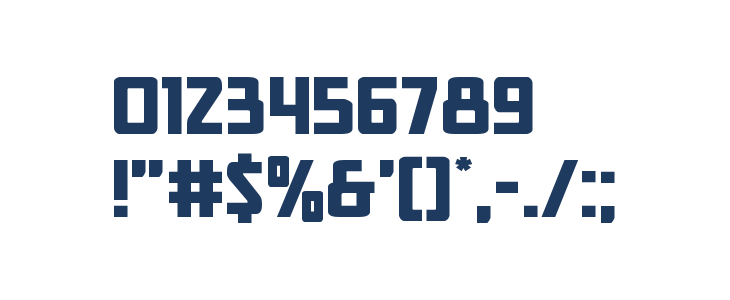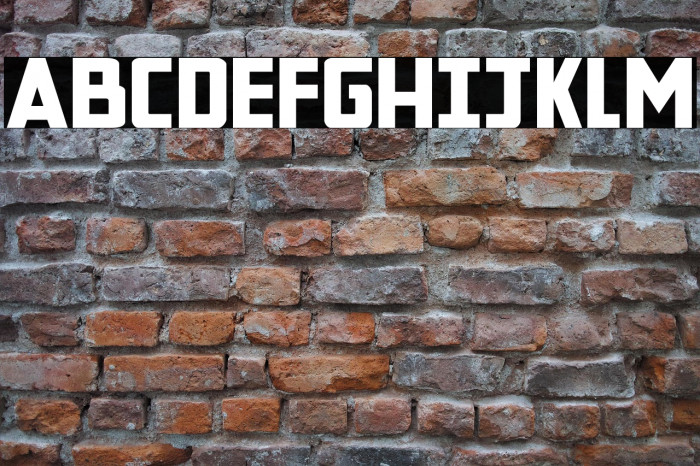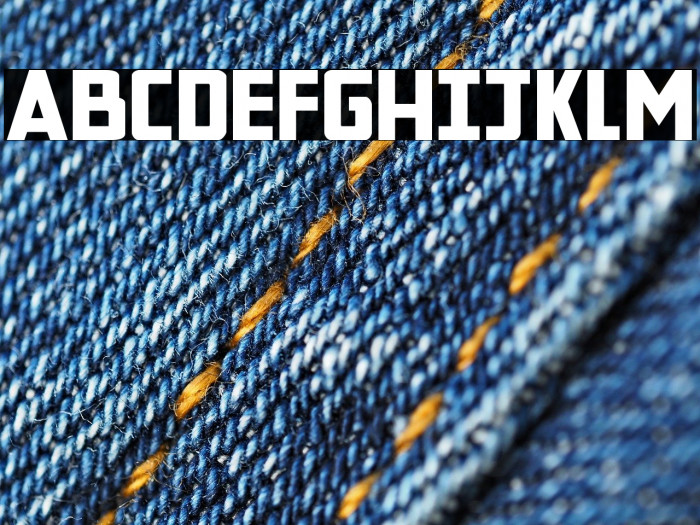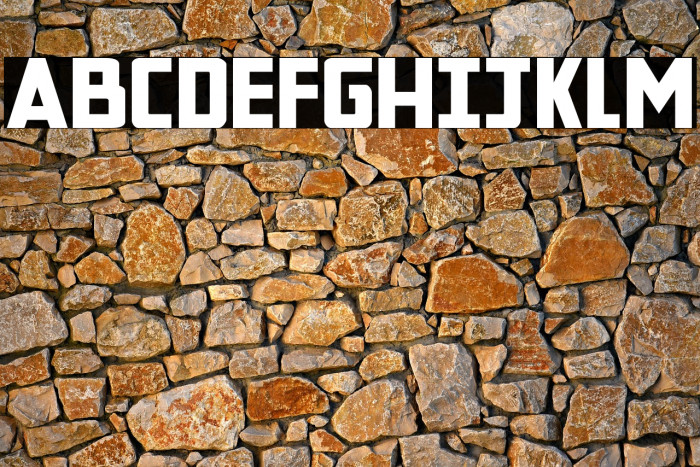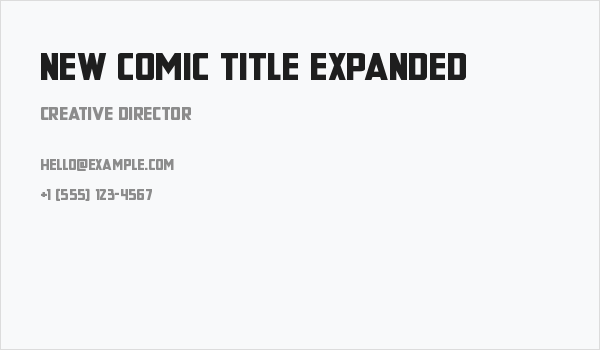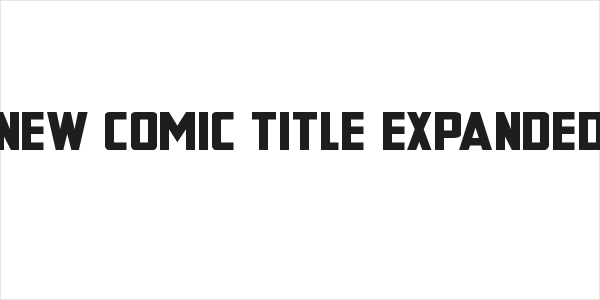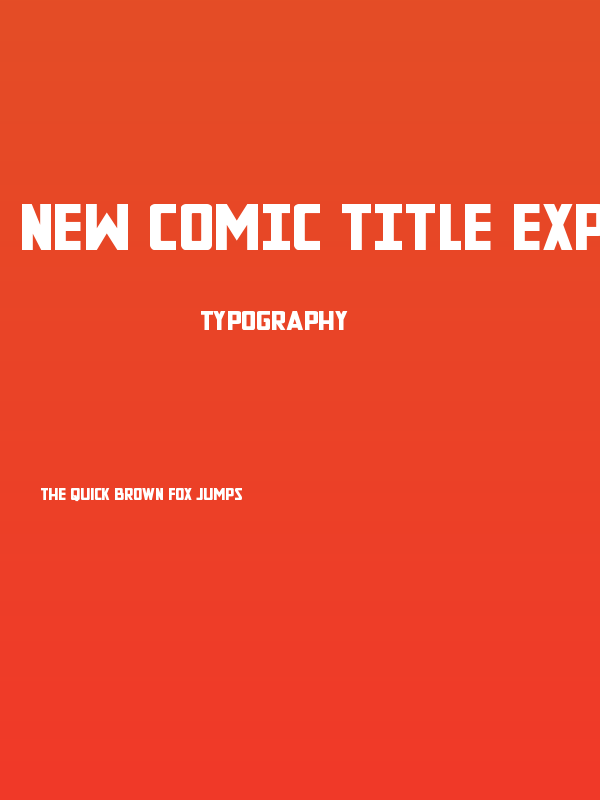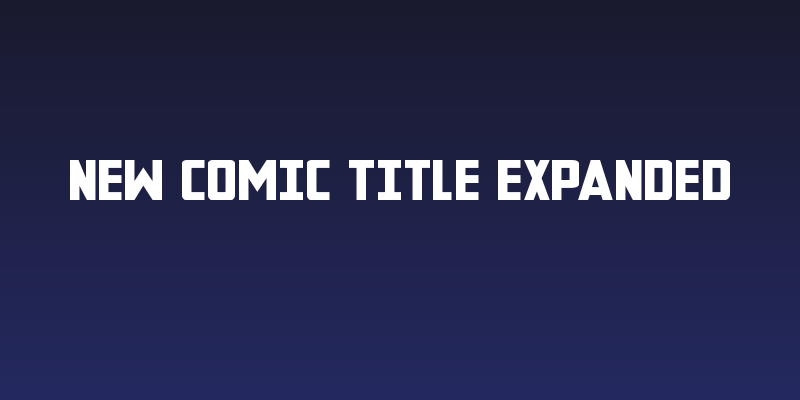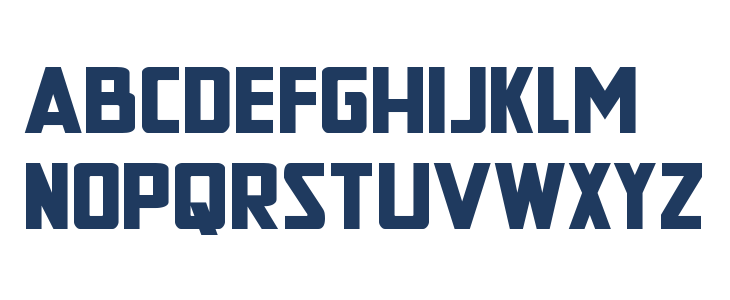
New Comic Title Expanded Font
New Comic Title Expanded Description
This font features bold, geometric letterforms with a strong presence, ideal for making a statement. The characters are blocky and angular, with consistent stroke widths that give it a uniform appearance. The uppercase letters are particularly striking, with sharp edges and a modern aesthetic. The numerals and special characters maintain the same boldness, ensuring a cohesive look across all text. This font is perfect for projects that require a bold and impactful visual style.
| Proposed Projects | Ideal for comic book titles, posters, logos, and any design requiring a strong visual impact. |